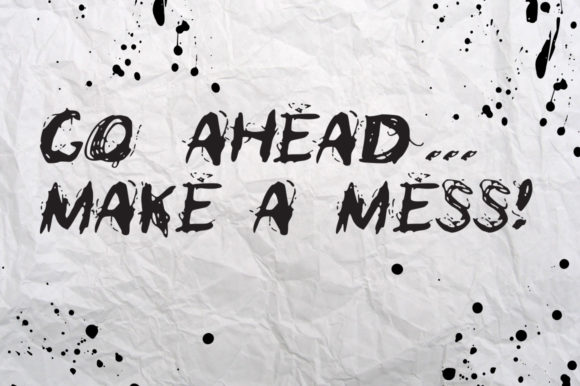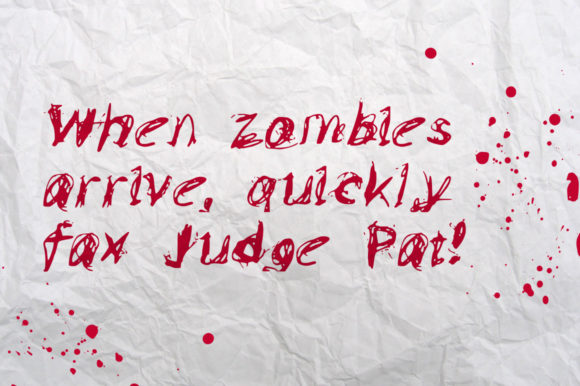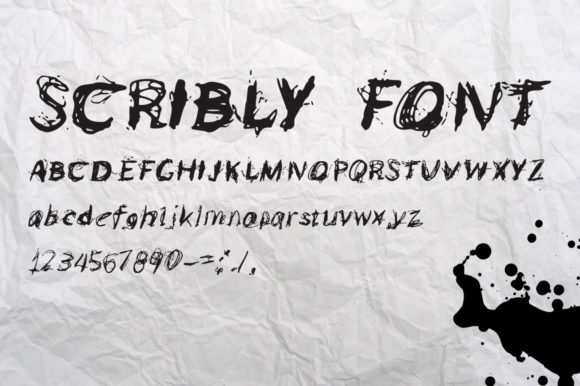
Introduction to Scribly Font
As a designer, have you ever found yourself stuck in a creative rut, searching for that perfect font to bring your project to life? You know, that one moment when you’re pouring your heart and soul into a design, and suddenly, the right font pops up, making everything fall into place.
Well, we’re excited to introduce you to the Scribly Font – a charming, handwritten font that’s about to become your new best friend. With its unique blend of fun, quirkiness, and authenticity, Scribly Font is the perfect design resource to elevate your creative project and make it truly stand out.
Key Features of Scribly Font
- High-quality design: The Scribly Font offers a unique, high-quality design perfect for creative projects, with a free download option available for designers.
- Transparent background: This font features a transparent background, making it easy to use as a design resource in various creative projects.
- High-resolution design: With a high resolution of 300 DPI, this font is ideal for use in print and digital designs, ensuring crisp and clear text.
- Unique characteristics: The Scribly Font has a distinctive, hand-drawn style with intricate details, making it a great choice for designers looking for a unique design element.
- Size and scalability: The font is available in various sizes, from 12 to 72 points, and can be easily scaled up or down without losing its quality or clarity.
Honest Review: Scribly Font
I recently stumbled upon the Scribly Font while searching for a design resource for a creative project. I was impressed by the high quality and versatility of this font, making it a valuable addition to my design arsenal.
What works well: ✨ The Scribly Font offers a unique, handwritten feel that can add a touch of personality to any design. It’s perfect for creative projects that require a more informal tone. I also appreciate that it’s available for free download, making it an excellent option for designers on a budget.
- High quality and versatile design
- Unique, handwritten feel
However, there are some limitations to consider: ⚠️ The font doesn’t come with a transparent background, which may require some additional design work if you’re looking for a seamless integration. Additionally, the font family is relatively small, which may limit its use in larger-scale designs.
Overall, I’m impressed with the Scribly Font and would definitely recommend it as a design resource for creative projects. While it may have some limitations, its unique design and free availability make it a valuable addition to any designer’s toolkit.
In PowerPoint and Word, select Scribly Font from the font list and adjust the font size and color as needed. This font is ideal for presentations, reports, and other documents requiring a creative and engaging design.
To get the most out of Scribly Font, experiment with different font sizes and styles. Combine it with other design elements, such as images and shapes, to create a visually appealing design. Additionally, use the transparent background feature to create a seamless design.
Scribly Font is perfect for designers working on creative projects, such as branding, advertising, and digital media. Its unique design and high quality make it an excellent addition to any design resource library.